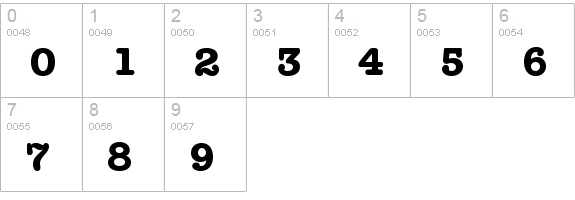
AmTypewriterEF-Bold is a strong, high-contrast variant in the AmTypewriterEF typeface family \xE2\x80\x94 well suited to headlines, attention-grabbing titles, and strong calls-to-action.
AmTypewriterEF-Bold is a modern and sleek font that exudes professionalism and sophistication. With its bold and strong design, this typeface is perfect for making a statement in any project. Whether you're creating a logo, poster, or website, AmTypewriterEF-Bold is sure to capture attention and leave a lasting impression. What sets this font apart is not only its stylish appearance but also the fact that it is available for free download at FontsMarket.com. This means that you can easily access and use this high-quality font in your various design projects without any cost involved. Don't miss out on the opportunity to enhance your work with the bold and impactful AmTypewriterEF-Bold font today!